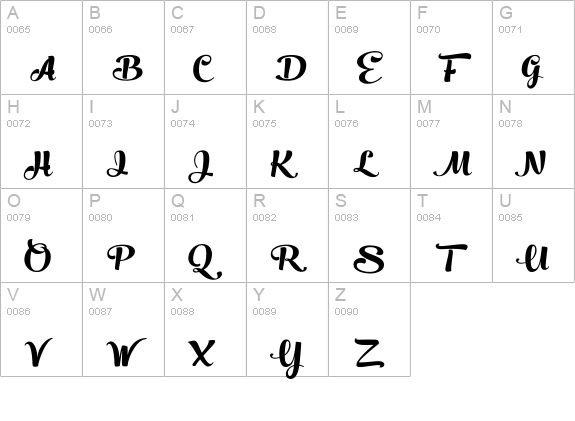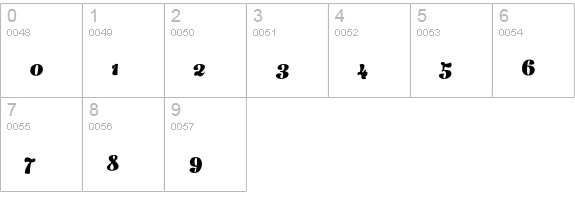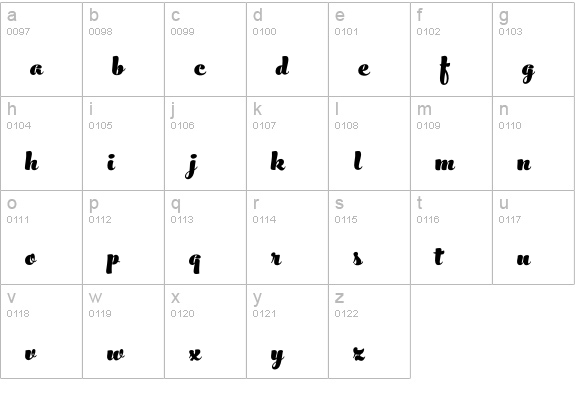
Peaches and Cream Black is a maximum-weight, dramatic variant in the Peaches typeface family \xE2\x80\x94 well suited to maximum-impact headlines, posters, and packaging.
Peaches and Cream Black font is a delightful and elegant typeface that exudes sophistication and charm. With its sleek lines and modern appeal, this font is perfect for adding a touch of class to any design project. The bold and distinctive lettering of Peaches and Cream Black font makes it stand out from the crowd, while still maintaining a sense of grace and refinement. Best of all, Peaches and Cream Black font is available for free download at FontsMarket.com. This means that you can easily access this stylish font to use in your personal or commercial projects without any cost. Whether you're designing a logo, creating a poster, or working on a branding project, Peaches and Cream Black font is sure to elevate your designs to the next level. Don't miss out on this fantastic opportunity to enhance your work with this beautiful and versatile typeface.